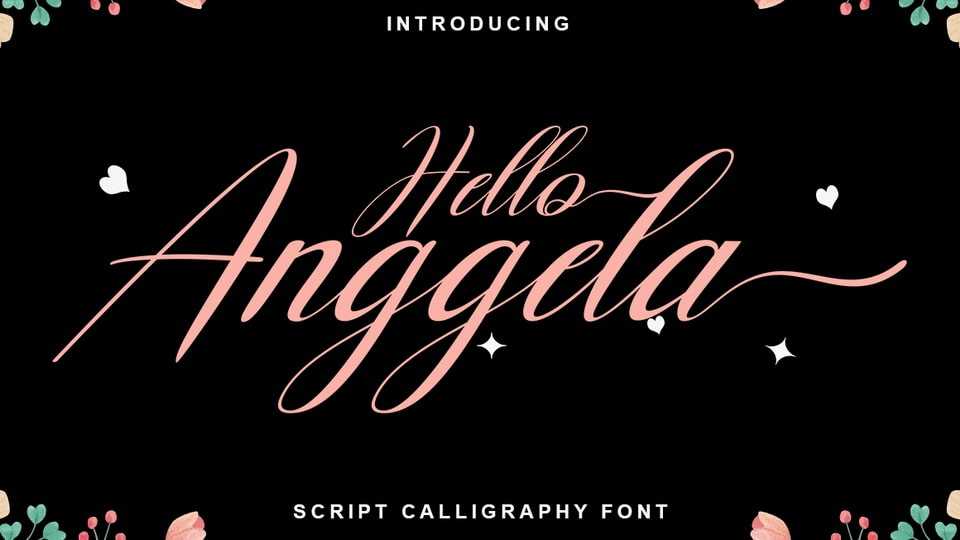
Download Hello Anggela Script font, a new fresh & modern script with a handmade calligraphy style, decorative characters and a dancing baseline!
Designer: Gian Studio